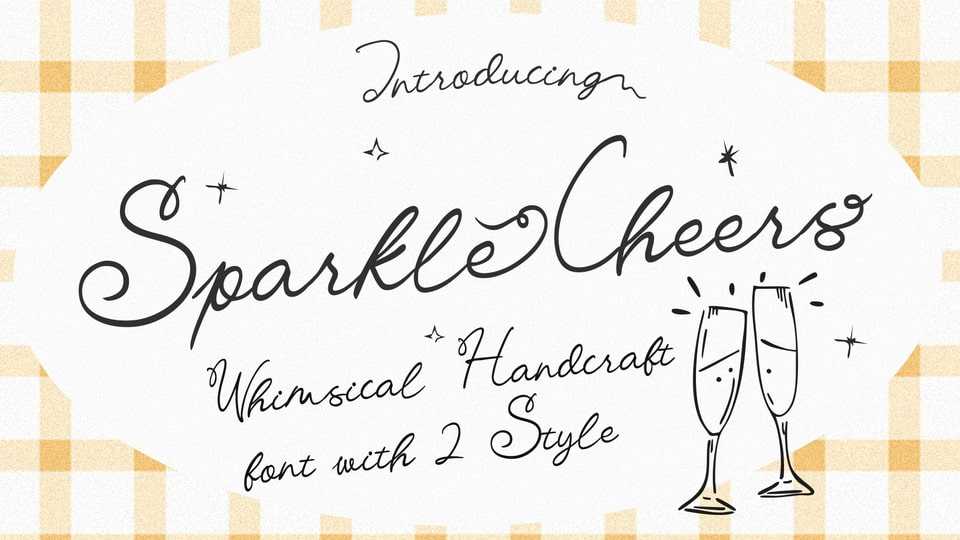
Download Sparkle Cheers font, a whimsical handwritten script typeface that adds magic and joy to your designs with smooth strokes, charming curves, and tons of alternates.